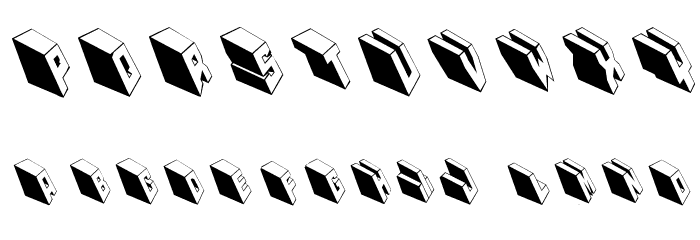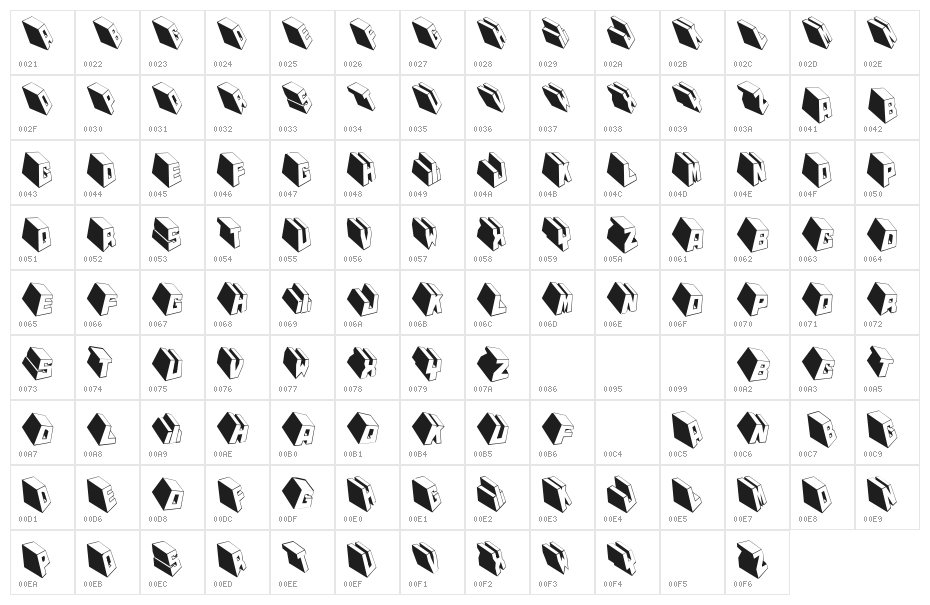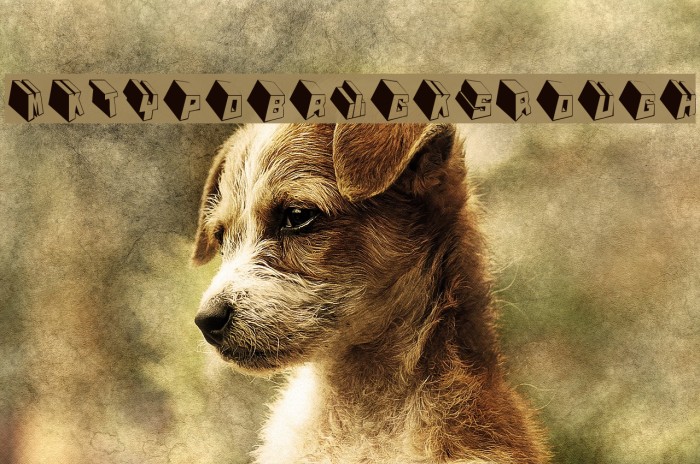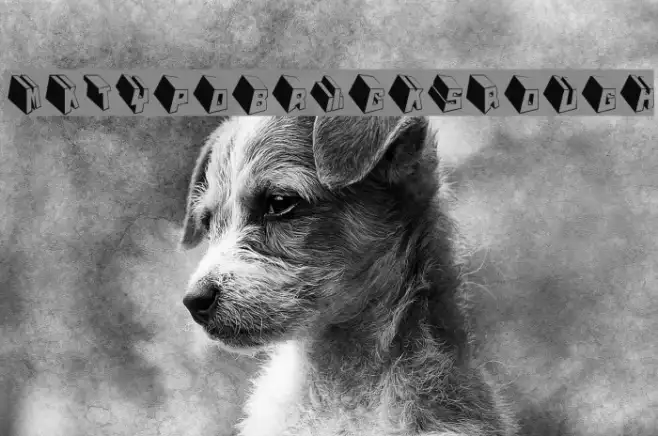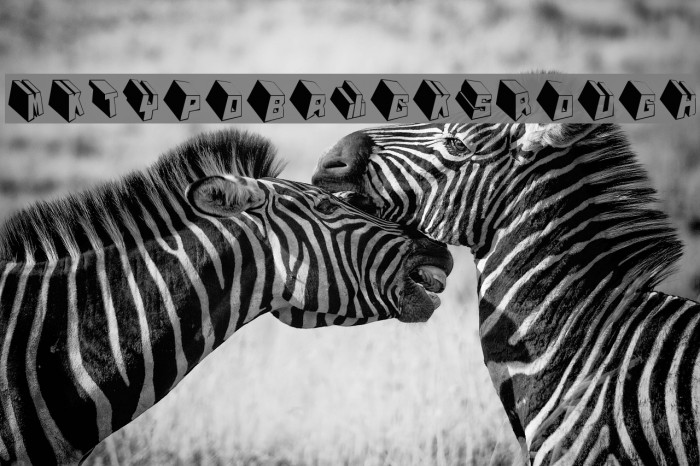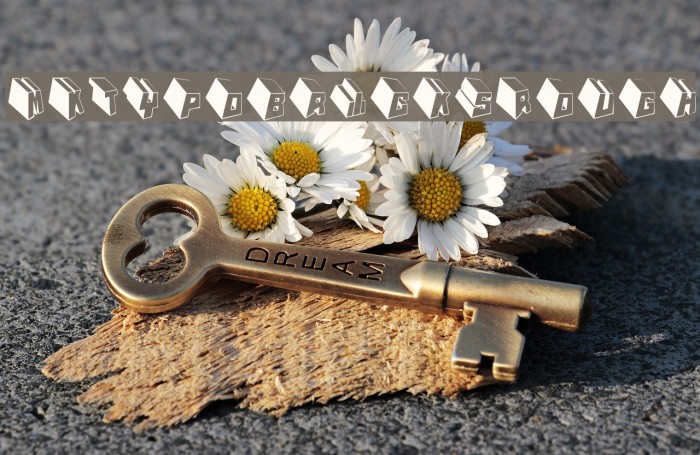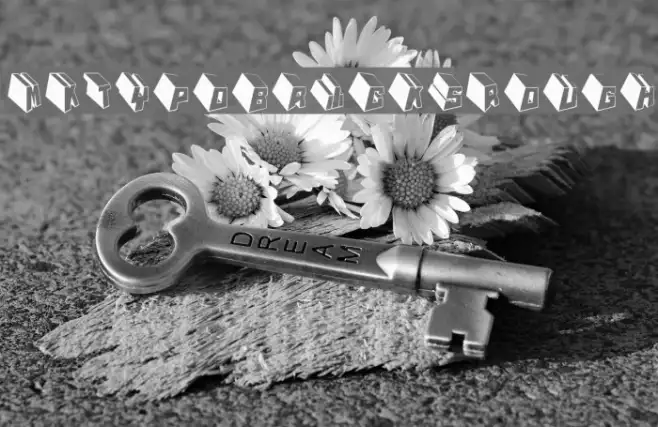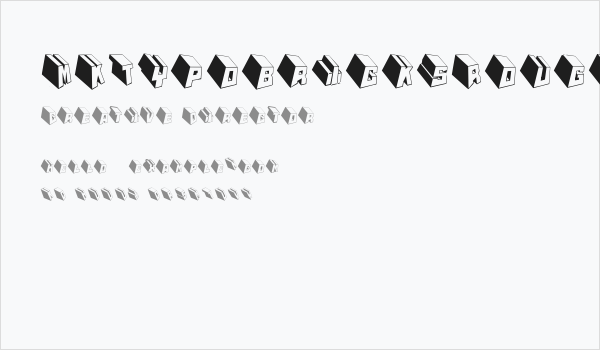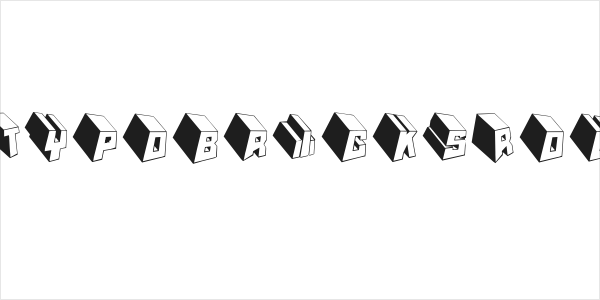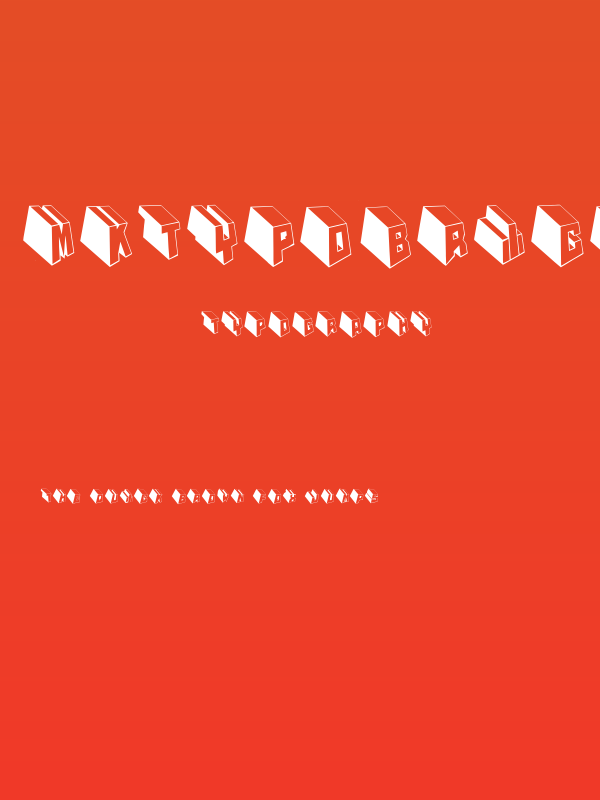
MKTypobricksRough Font
MKTypobricksRough Description
This font features a bold, three-dimensional block style that gives each character a distinct, robust appearance. The letters are designed with a shadow effect, creating a sense of depth and solidity. The geometric shapes are consistent throughout, with sharp angles and clean lines that enhance the boldness of the typeface. The uppercase and lowercase letters maintain a uniform style, ensuring readability while adding a playful, architectural element to the text. The numbers and special characters follow the same design principles, making this font versatile for various applications. Its unique style makes it ideal for projects that require a strong visual impact.